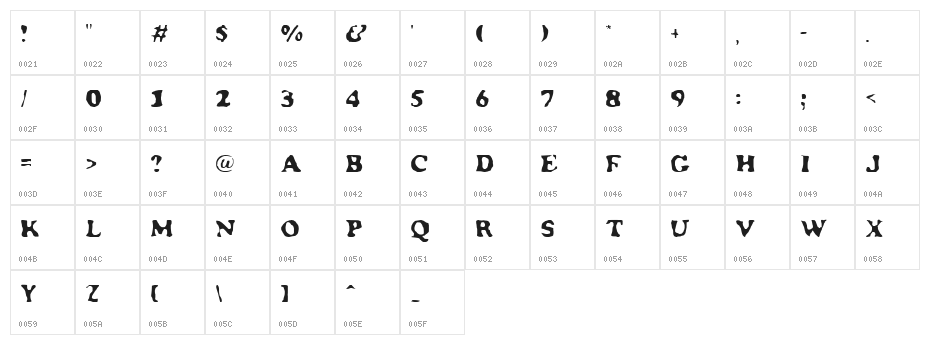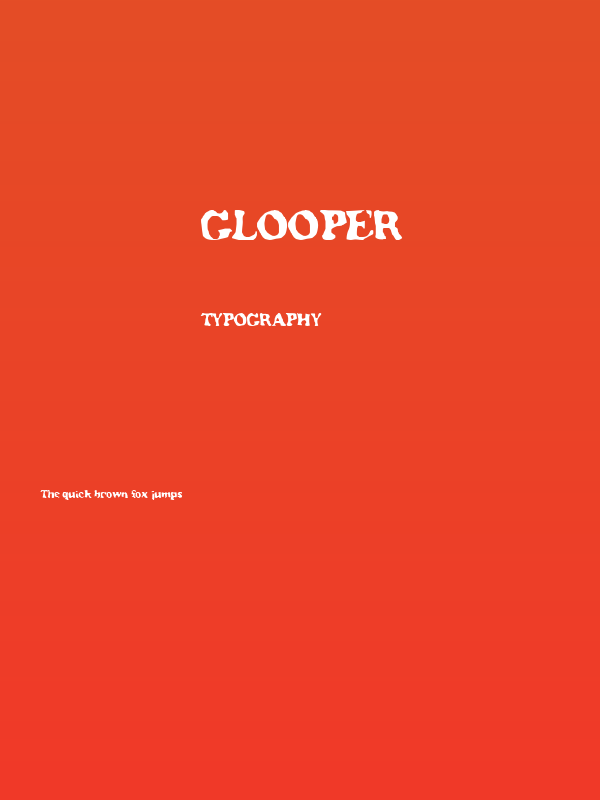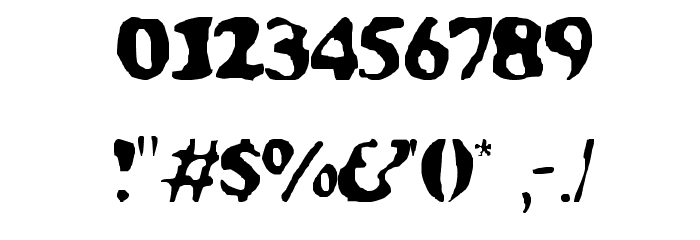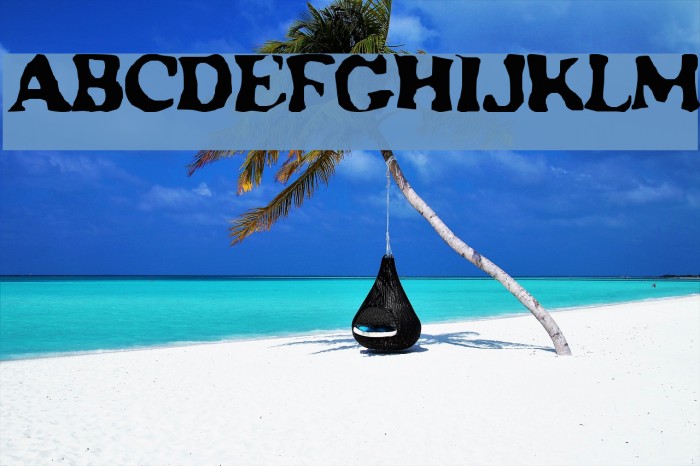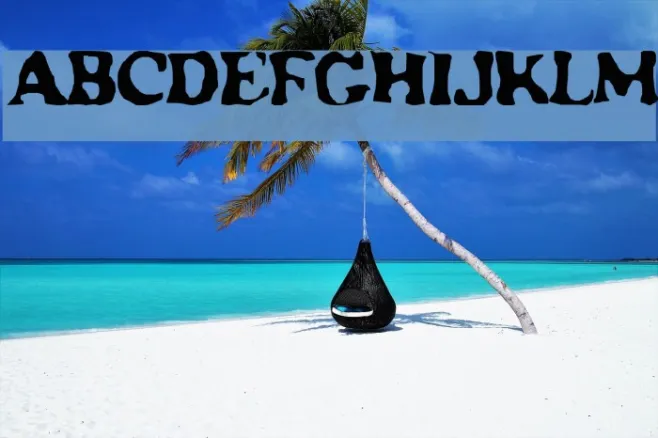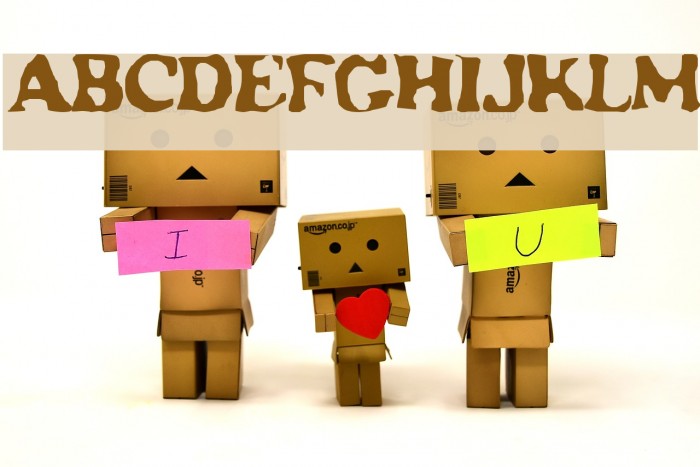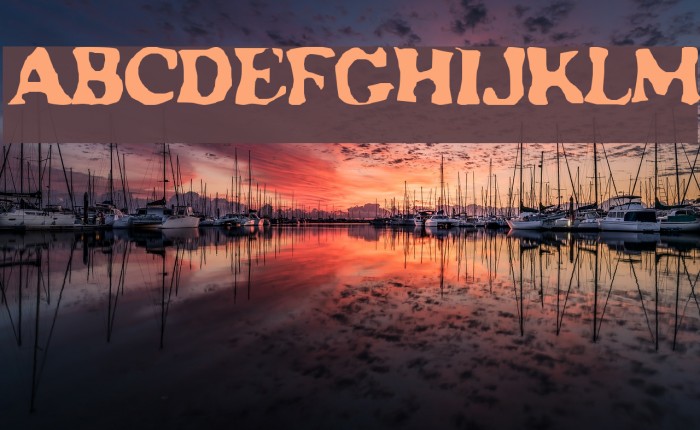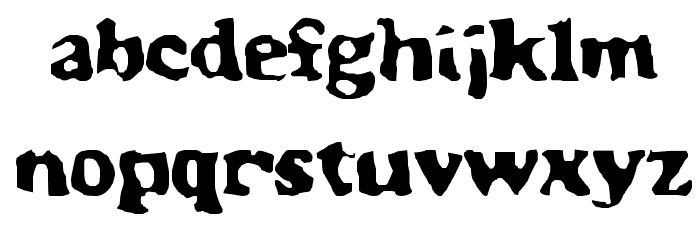
Glooper Font
Glooper Description
This font features a bold and playful design with irregular, wavy edges that give it a hand-drawn appearance. The characters are thick and substantial, with a unique, almost whimsical style that suggests movement and energy. The uppercase and lowercase letters maintain a consistent weight, while the numbers and special characters follow the same playful aesthetic. The overall look is eye-catching and distinctive, making it suitable for creative and informal applications.
| Categories | Script |
| Overall Style | Playful, Creative |
| Proposed Projects | Ideal for children's book covers, playful branding, event posters, and creative social media graphics. |